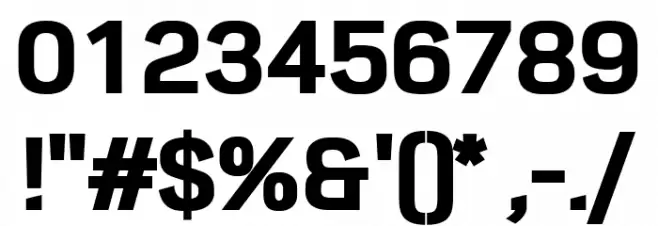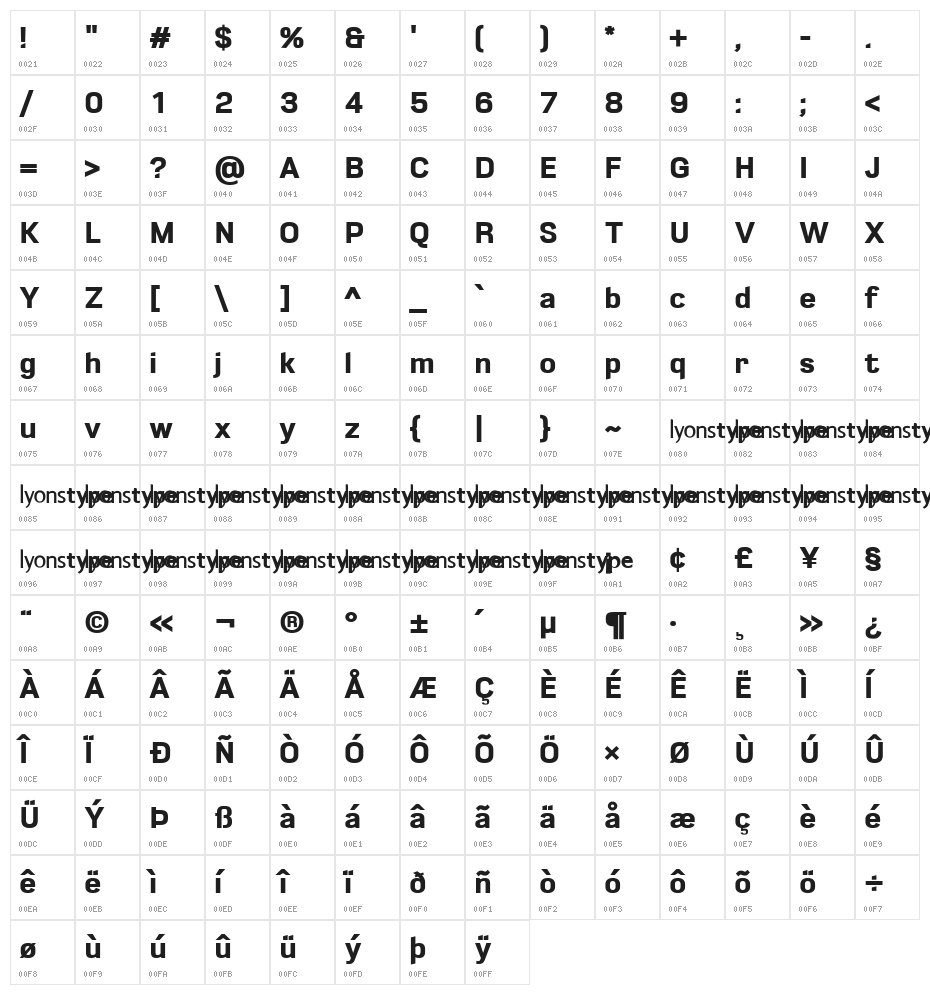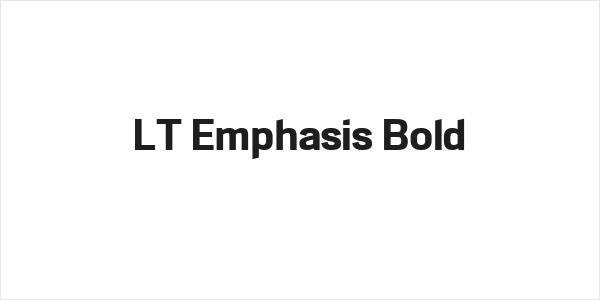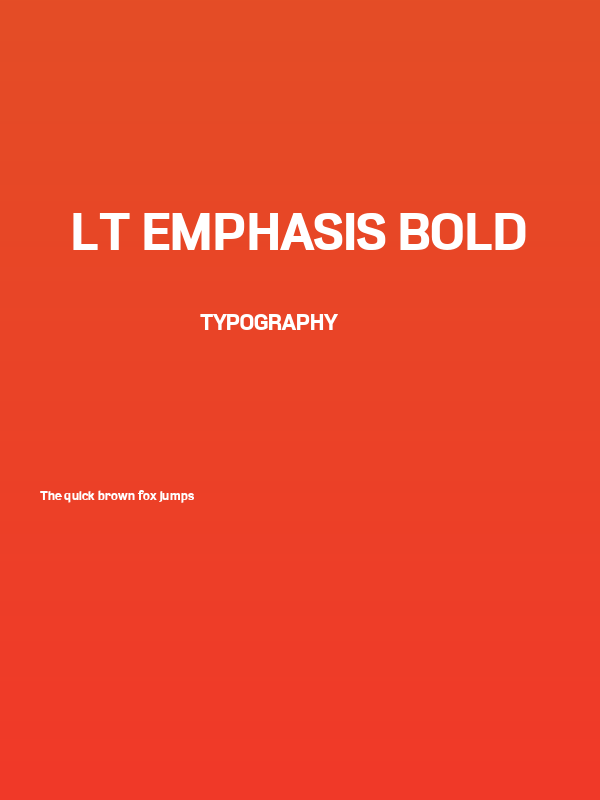
LT Emphasis Bold Font
LT Emphasis Bold Description
This font exhibits a bold and assertive style, characterized by its thick strokes and strong presence. The uppercase letters are uniform and well-proportioned, while the lowercase letters maintain a consistent height, contributing to its readability. The numerals are clear and distinct, matching the robust style of the alphabet. Special characters are designed with the same boldness, ensuring they stand out effectively. The overall design is clean and modern, making it suitable for impactful communication.
| Proposed Projects | Ideal for headlines, posters, branding materials, and any project requiring a strong visual impact. |